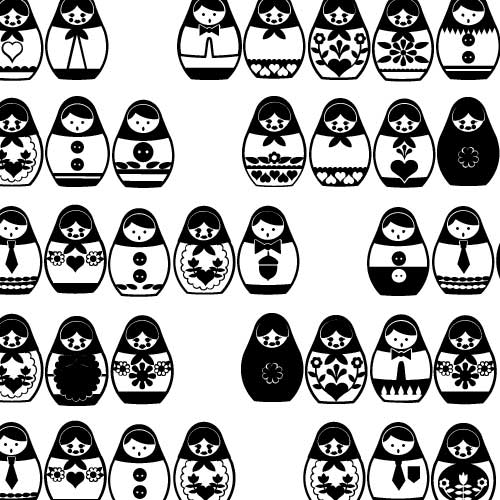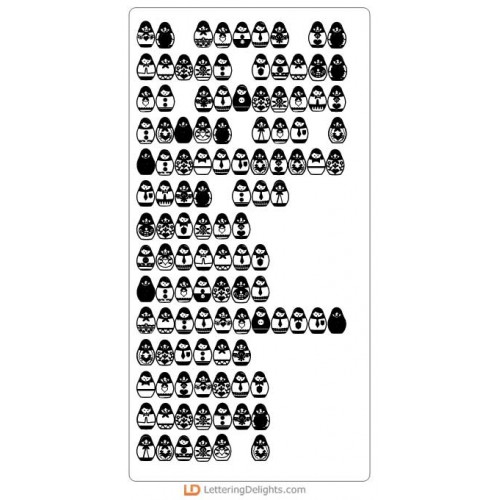
DB Matryoshka - DB
This adorable doodlebat font features 26 Russian styled stacking dolls. Perfect for cards, crafts, gifts, decor, scrap book pages, planner stickers and more!